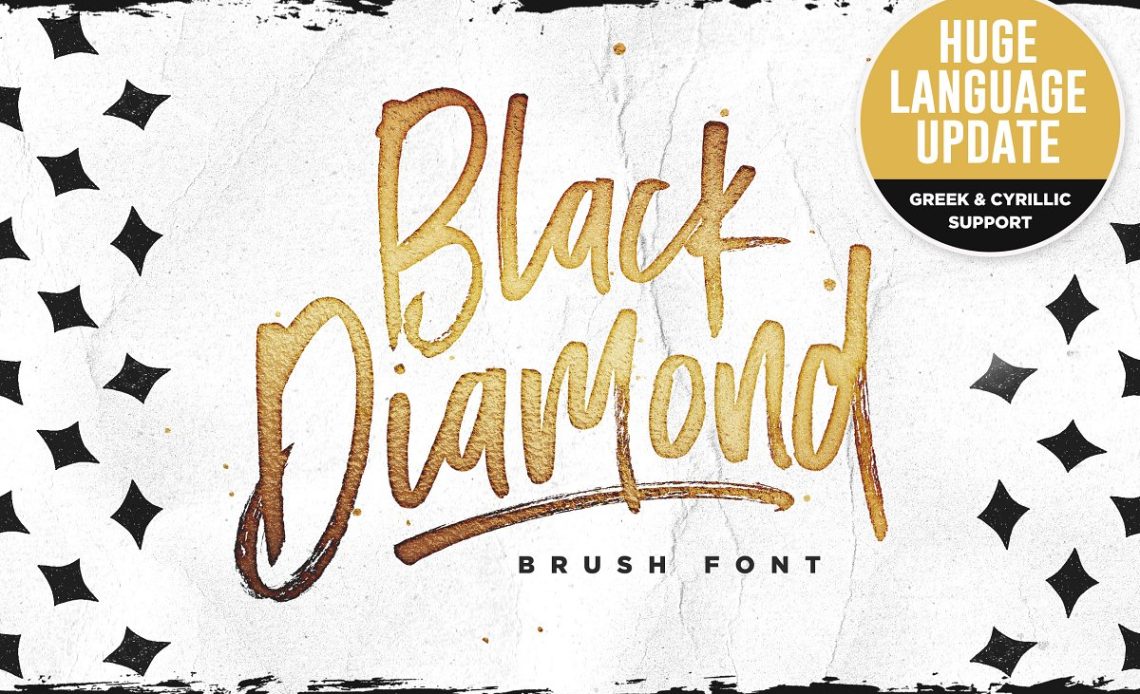
Are you looking for the best fonts to use for branding? Look no further than Black Diamond Brush Font, created by the talented Sam Parrett. This script font isn't your average brush font - it's raw, edgy, and bursting with attitude. Hand-painted with extra attention to quick-strokes and dry textures, Black Diamond is guaranteed to deliver a loud, proud, and carefree message that will capture the attention of your audience.
Black Diamond is perfect for a wide range of uses, including logos, handwritten quotes, product packaging, merchandise, social media, and greeting cards. It comes as a single font file packed full of great features, including a full set of lower and uppercase letters, a large range of punctuation, numerals, and multilingual support. Additionally, it contains several ligatures and stylistic alternates for those who have opentype capable software (e.g. Photoshop/Illustrator).
But that's not all - Black Diamond also comes with added bonus extras to take your designs to the next level. Just type out any of the square-bracket characters { } [ ] on your keyboard for quick and easy access to 4 different swashes, and the arrow up ^ key to produce paint splatters.
And if that wasn't enough, Black Diamond has been updated to support Greek and Cyrillic alphabets, giving you even more language support for your branding needs. So whether you're targeting audiences in Belarusian, Bulgarian, Croatian, Czech, Danish, Dutch, English, Estonian, Filipino, Finnish, French, German, Greek, Icelandic, Indonesian, Italian, Malay, Maltese, Norweigen, Polish, Portuguese, Romanian, Romansh, Russian, Serbo-Croatian, Spanish, Swedish, Turkish, Ukrainian, or Welsh, Black Diamond has got you covered.